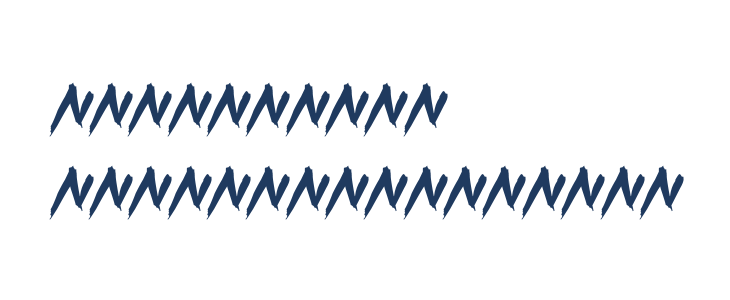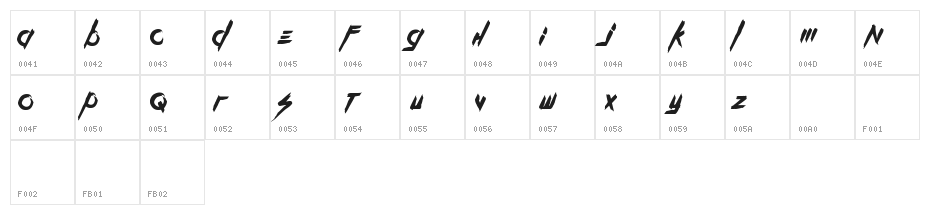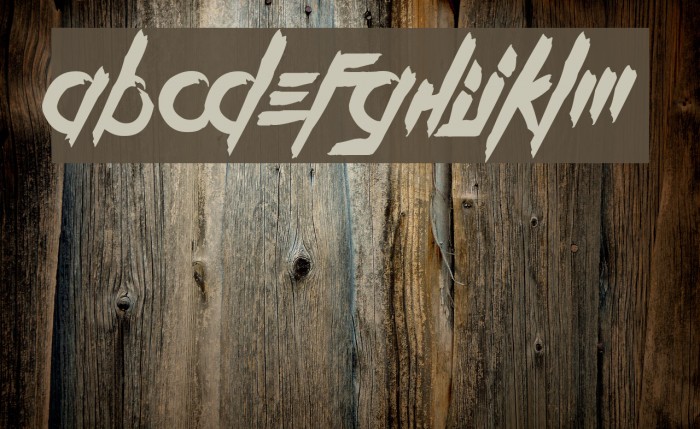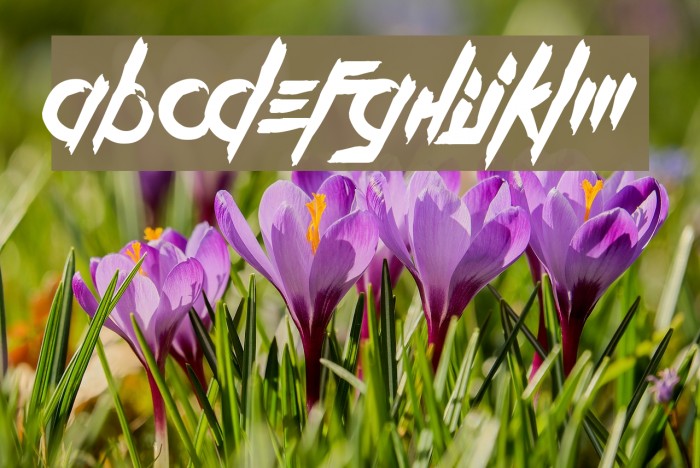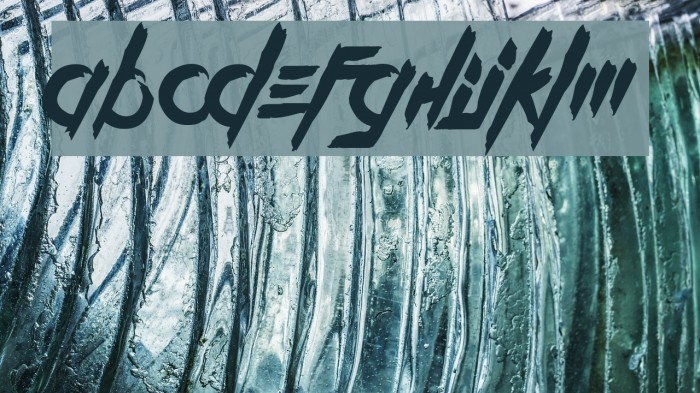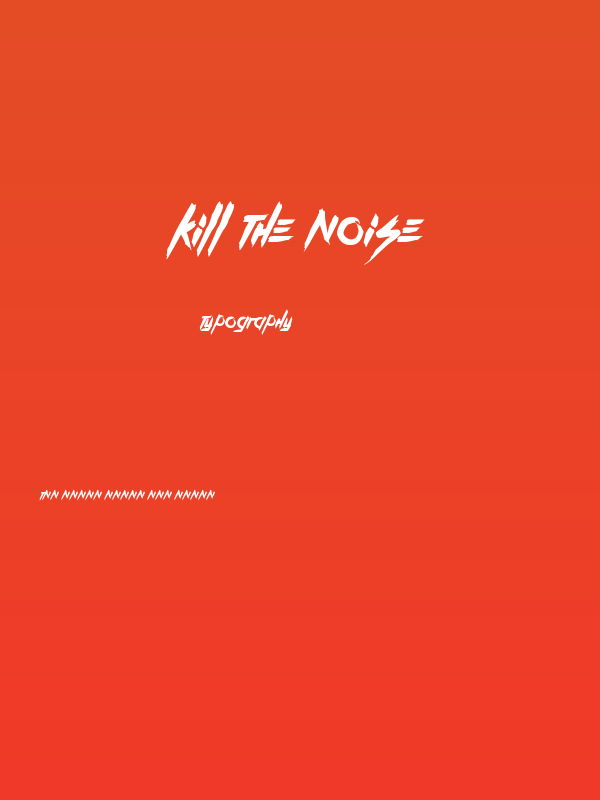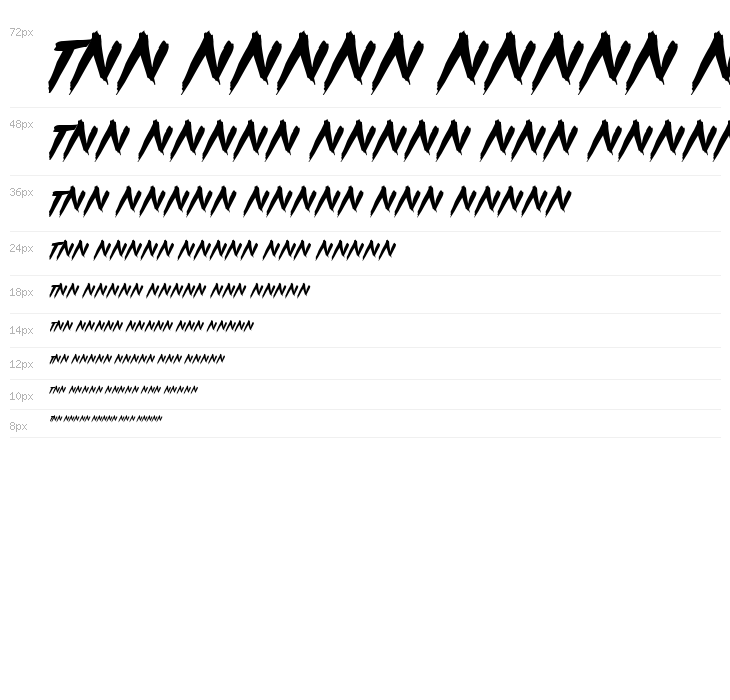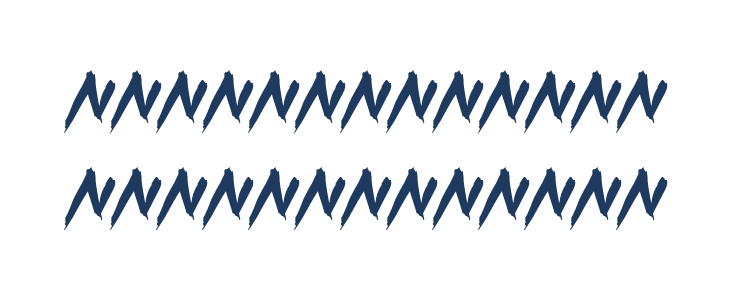
Kill The Noise Font
Kill The Noise Description
This font features a bold, edgy design with sharp, angular strokes that convey a sense of intensity and energy. The characters are crafted with a dynamic, almost aggressive style, making them stand out with a strong visual impact. The uppercase and lowercase letters maintain a consistent aesthetic, characterized by their jagged edges and slanted forms. This font is ideal for projects that require a bold statement or a modern, rebellious vibe. Its unique appearance is perfect for music album covers, posters, or any design that aims to capture attention with a striking, unconventional look.
| Proposed Projects | Music album covers, posters, branding for edgy or modern products, event promotions. |